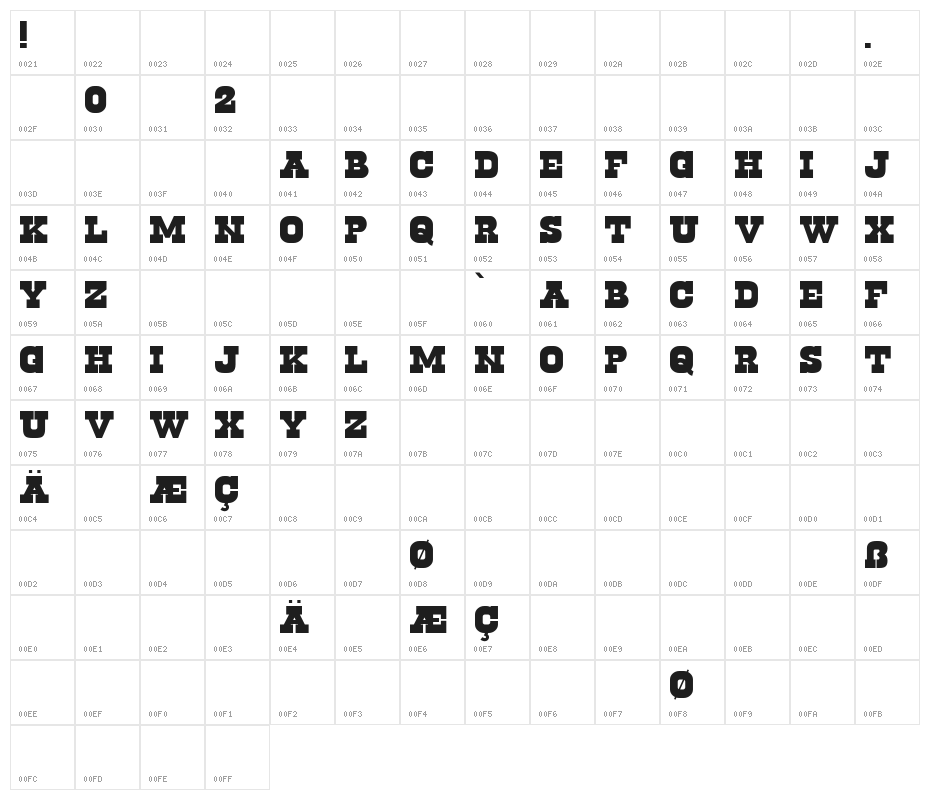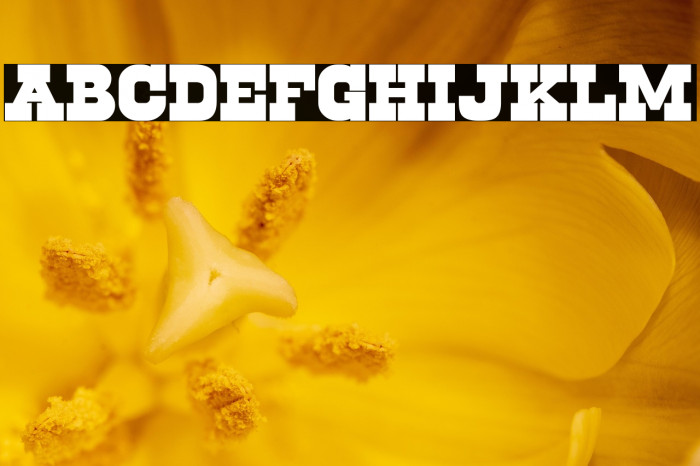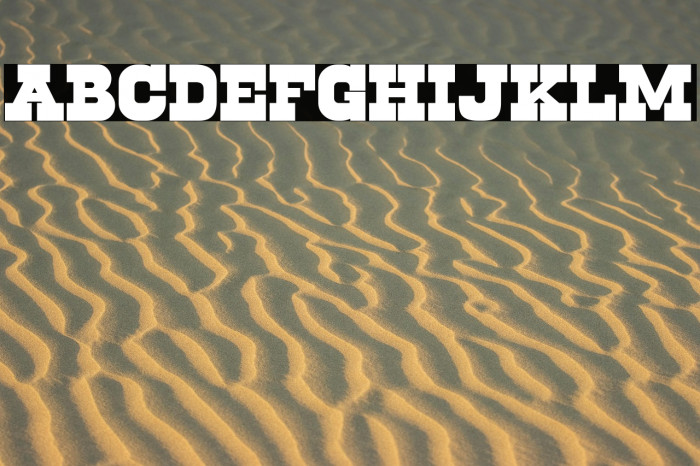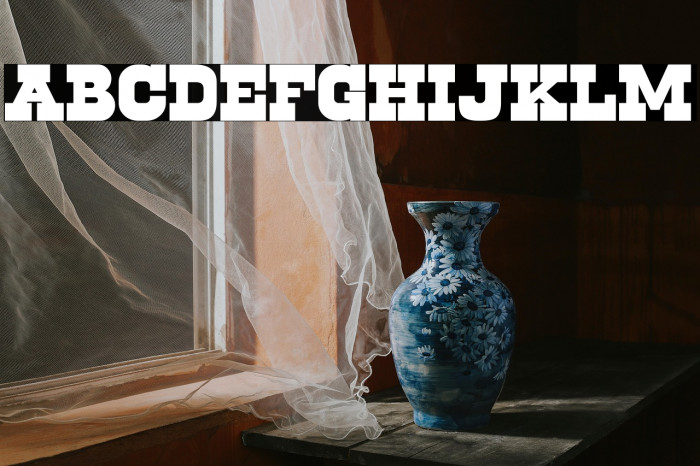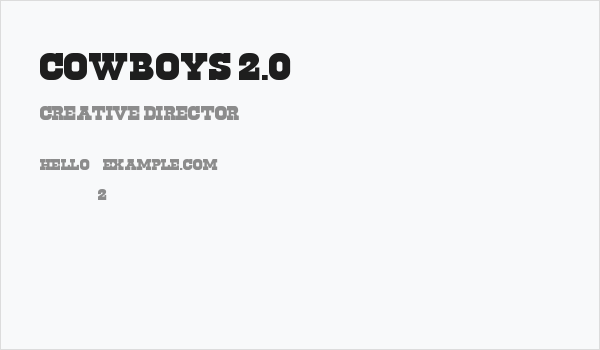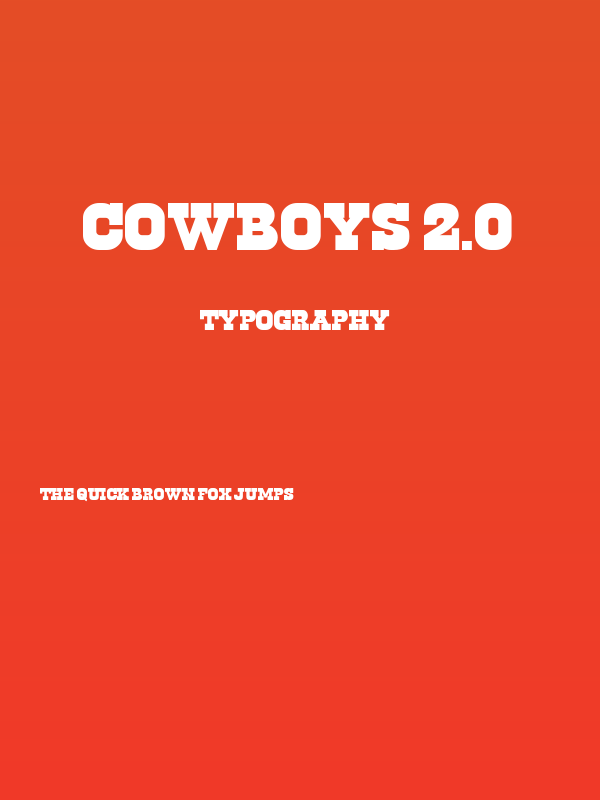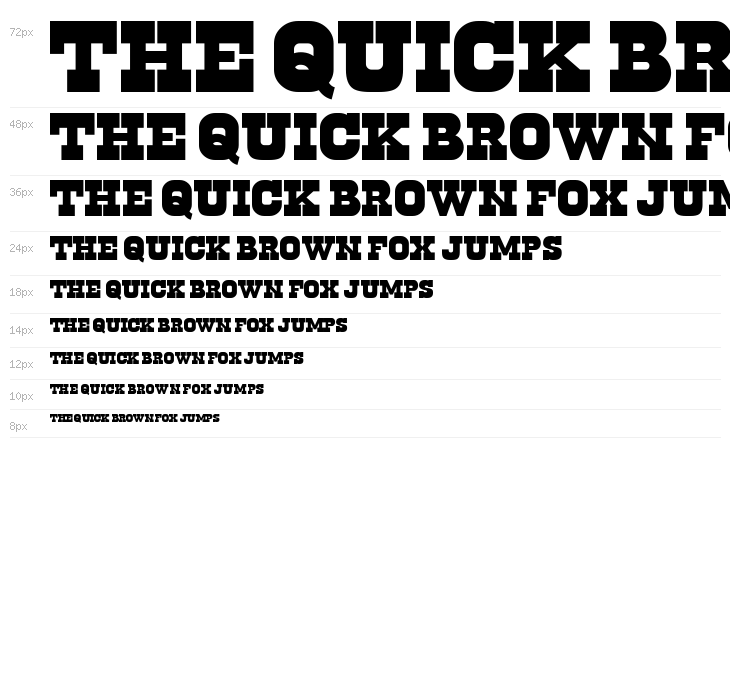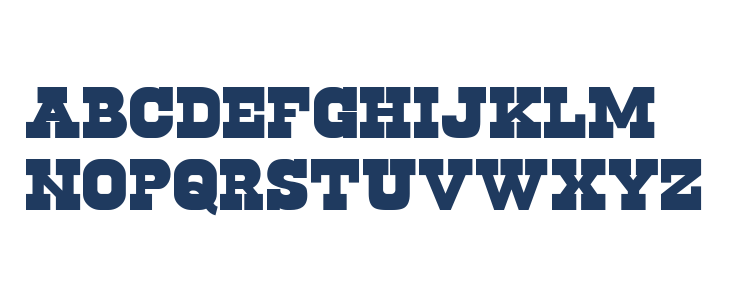
Cowboys 2.0 Font
Cowboys 2.0 Description
This font exudes a bold and rugged aesthetic, reminiscent of the classic Western style. The characters are robust and heavily weighted, with thick strokes and minimal contrast, giving them a strong and commanding presence. The serifs are pronounced and squared, adding to the sturdy and traditional feel. The overall design is straightforward and impactful, making it ideal for attention-grabbing headlines or thematic projects. The spacing between characters is tight, ensuring a cohesive and compact appearance. This font is perfect for designs that require a touch of vintage Americana or a bold statement.
| Proposed Projects | Ideal for Western-themed posters, vintage branding, signage, and bold headlines. |
Cowboys 2.0